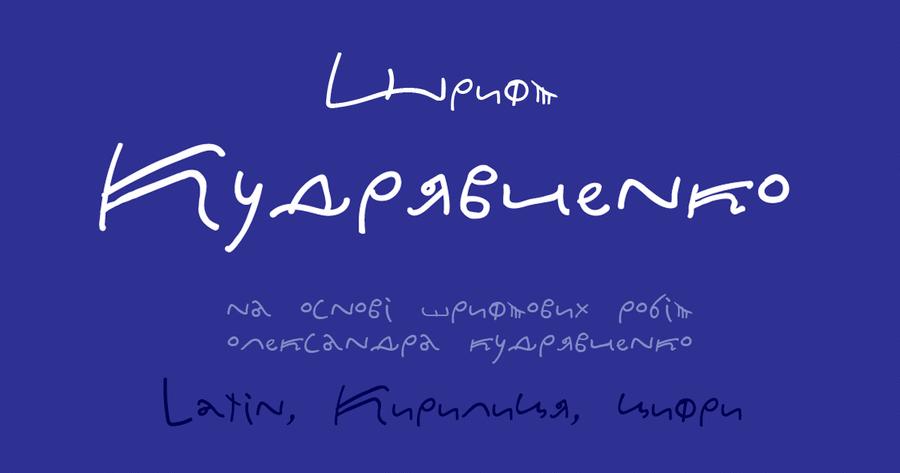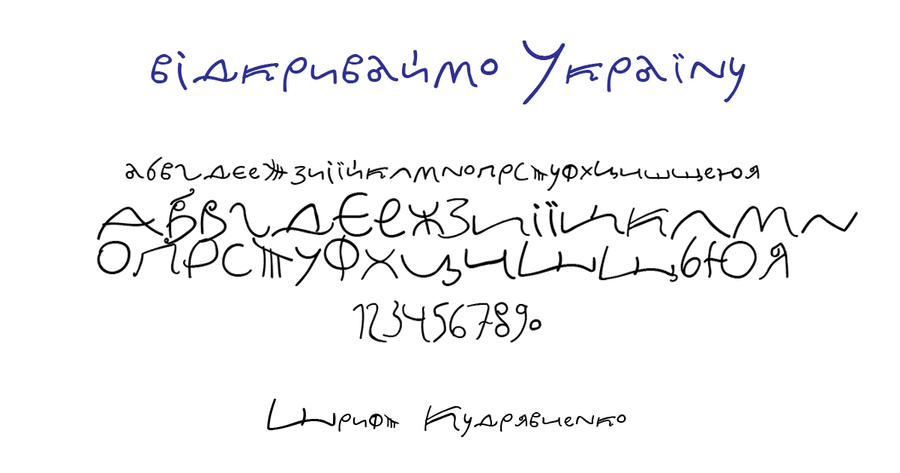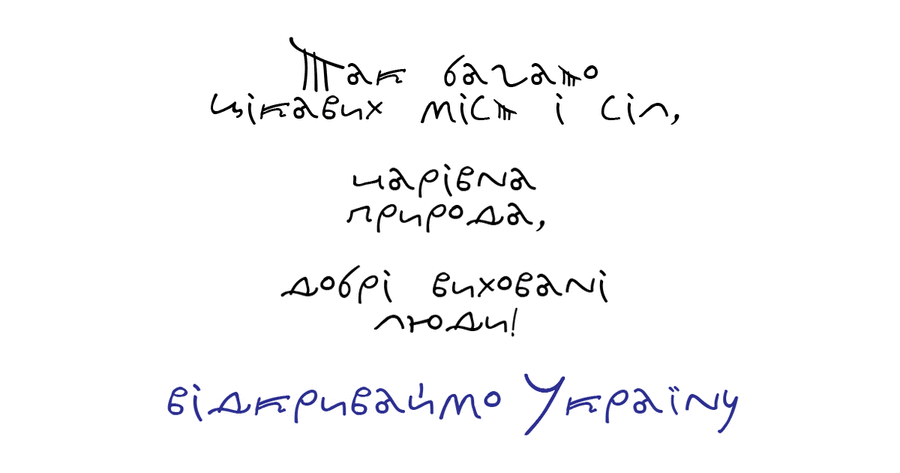
About KudriavchenkoTypeface Kudriavchenko is designed specifically for Ukrainian texts, but Latin is also supported. This is a friendly and positive font that refers to the times of Kievan Rus, reminiscent of ancient graffiti on the walls of temples. The main inspiration was the handwriting of the Ukrainian artist Alexander Kudryavchenko that is used on the most of his works. The typeface was designed by Irina Kudryavchenko in 2019.